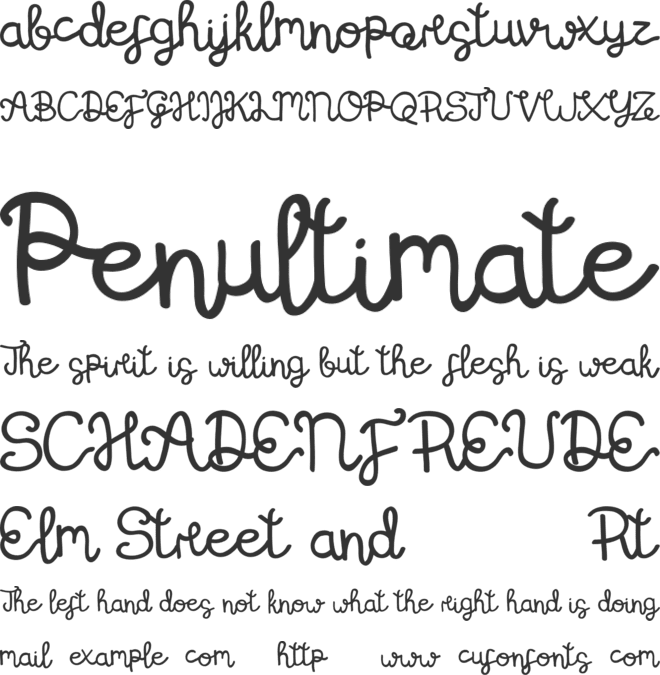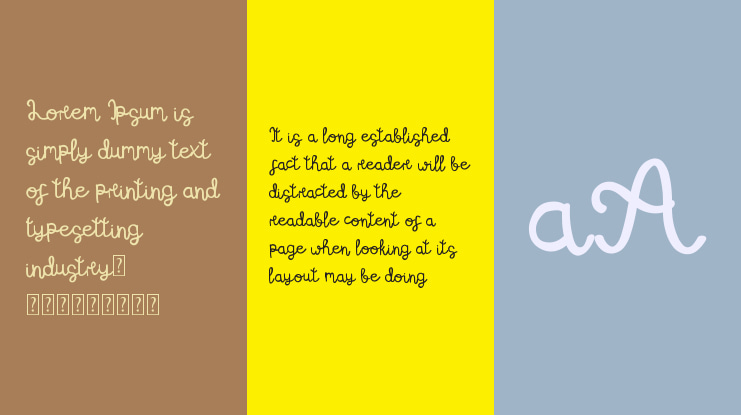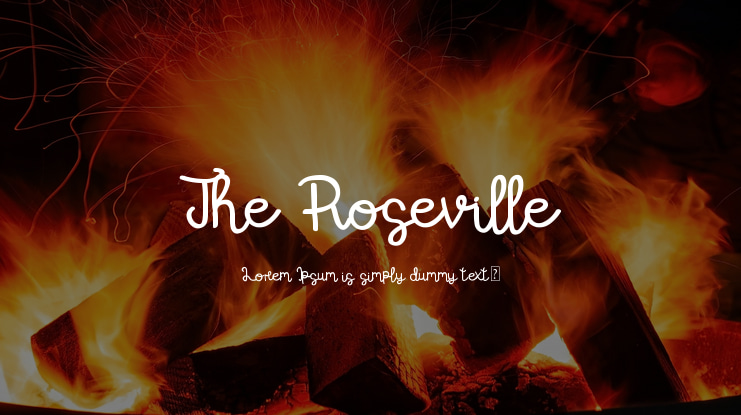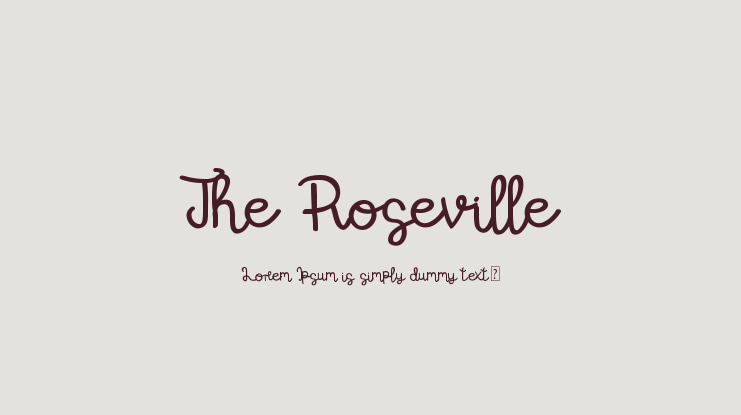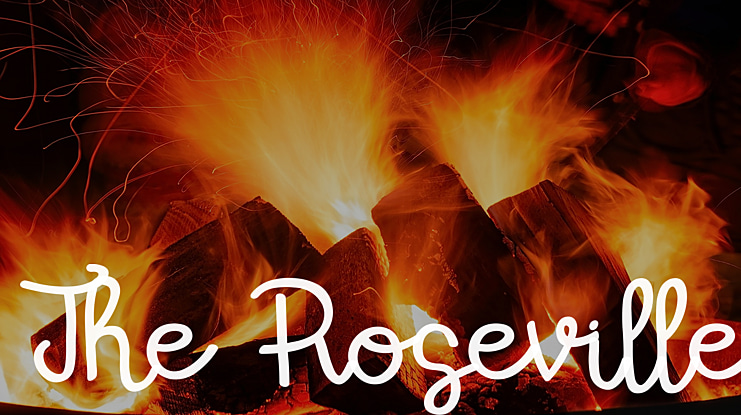
The Roseville Font
"The Roseville" is a handwritten script font. Bold line with an extras alternate love in lowercase. Inspired by the beautiful blossom of roses. Suitable for any design promotion.